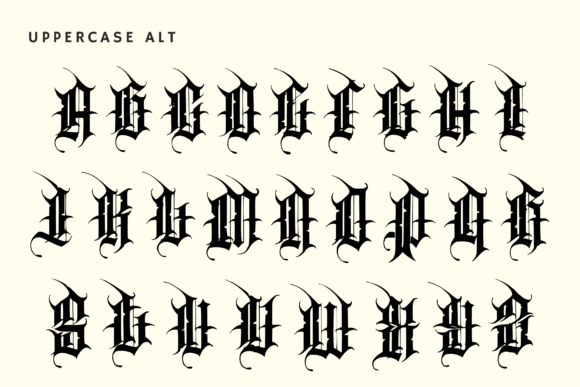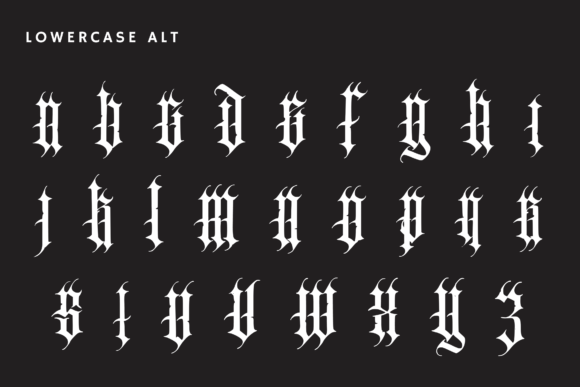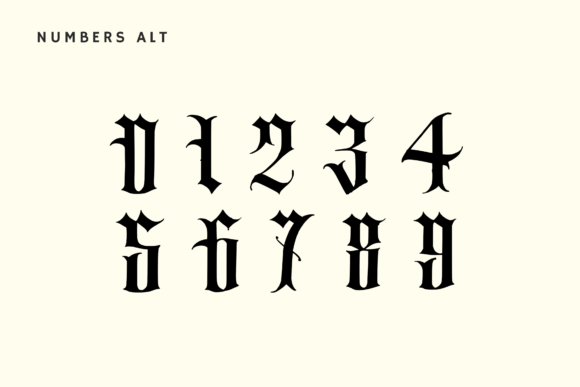
Dragooo Font: Unleash the Power of Gothic Elegance in Your Designs
Are you tired of using the same old fonts in your designs? Look no further than Dragooo Font, a stunning Gothic, medieval-styled, and distinct blackletter font that’s sure to capture attention. With its incredibly unique style, Dragooo Font is the perfect choice for designers and crafters looking to add a touch of elegance and sophistication to their work.
The Unique Charm of Dragooo Font
Dragooo Font is a masterful blend of Gothic and medieval styles, with intricate details and ornate flourishes that evoke the grandeur of ancient castles and mythical creatures. Its distinct blackletter style sets it apart from other fonts, giving it a bold and dramatic appearance that’s sure to make your designs stand out.
Whether you’re working on a branding project, a wedding invitation, or a craft project, Dragooo Font is the perfect choice for adding a touch of drama and elegance. Its versatility and flexibility make it suitable for a wide range of applications, from digital designs to print materials.
Key Features of Dragooo Font
- Gothic and medieval-styled: Dragooo Font boasts a unique blend of Gothic and medieval styles, perfect for creating dramatic and eye-catching designs.
- Distinct blackletter font: Its bold and ornate blackletter style sets it apart from other fonts, giving it a distinctive and elegant appearance.
- Incredibly unique style: Dragooo Font’s intricate details and ornate flourishes make it a standout font that’s sure to capture attention.
- Versatile and flexible: Suitable for a wide range of applications, from digital designs to print materials.
Why Choose Dragooo Font?
So why choose Dragooo Font over other fonts? Here are just a few reasons:
- Add a touch of elegance: Dragooo Font’s Gothic and medieval styles add a touch of sophistication and elegance to any design.
- Stand out from the crowd: Its unique and distinctive style ensures that your designs will stand out from the crowd.
- Perfect for dramatic designs: Dragooo Font is perfect for creating dramatic and eye-catching designs that demand attention.
- Easy to use: With its clear and legible design, Dragooo Font is easy to use and works well in a variety of contexts.
How to Use Dragooo Font in Your Designs
Using Dragooo Font in your designs is easy. Here are a few tips to get you started:
- Pair it with contrasting fonts: Pair Dragooo Font with contrasting fonts to create visual interest and add depth to your designs.
- Use it for headlines and titles: Dragooo Font is perfect for headlines and titles, where its bold and dramatic style can really shine.
- Experiment with different colors: Try experimenting with different colors and textures to add an extra layer of interest to your designs.
In conclusion, Dragooo Font is a stunning Gothic, medieval-styled, and distinct blackletter font that’s perfect for designers and crafters looking to add a touch of elegance and sophistication to their work. With its incredibly unique style, versatility, and flexibility, Dragooo Font is sure to become a go-to font in your design arsenal. So why wait? Fall in love with Dragooo Font and start creating spectacular designs today!